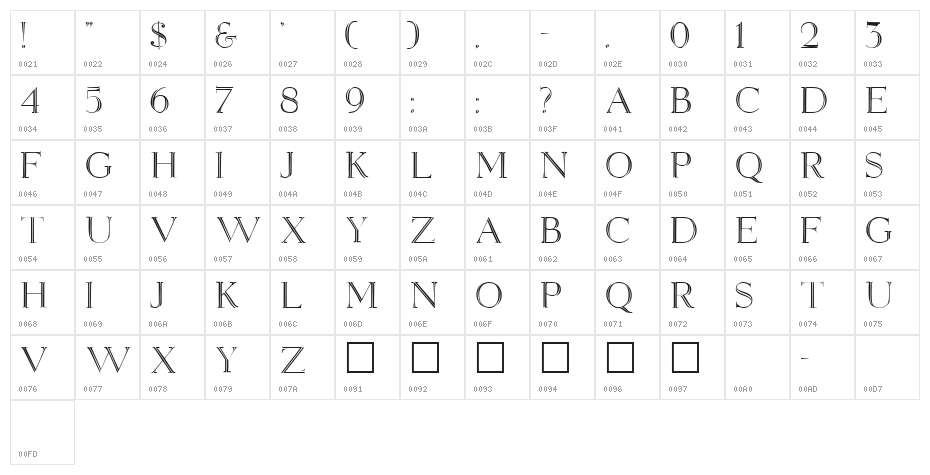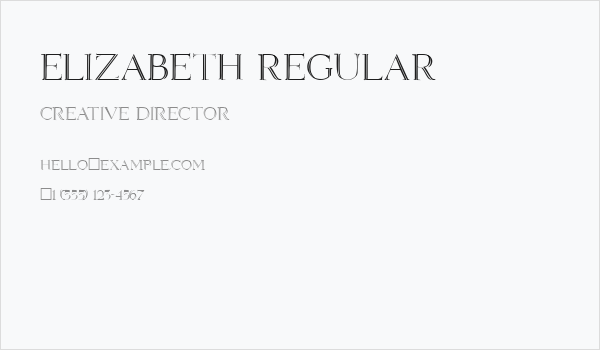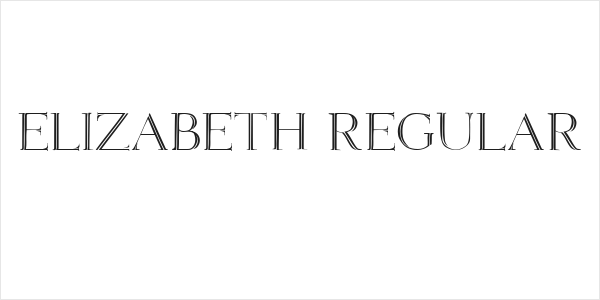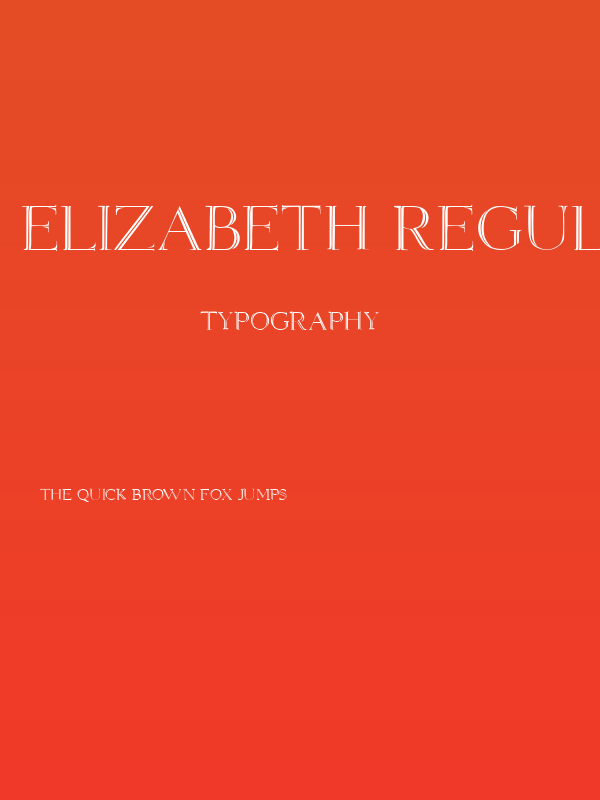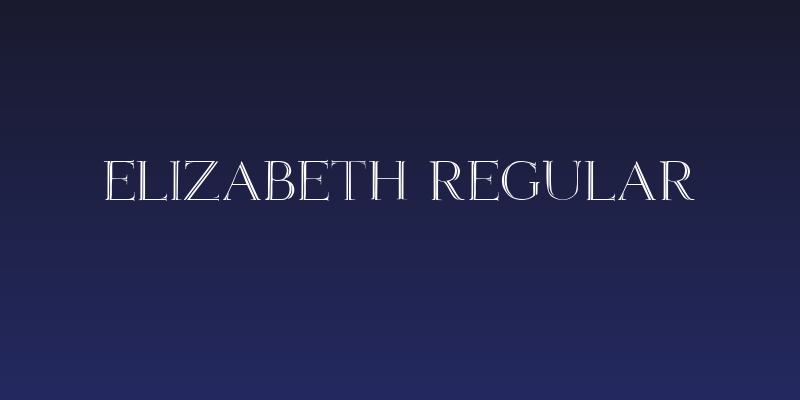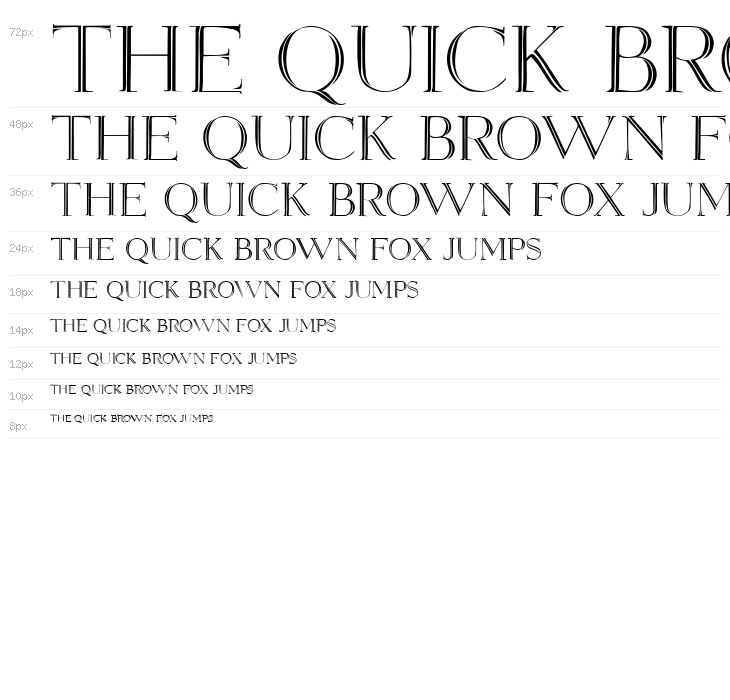
Elizabeth Regular Font
Elizabeth Regular Description
This font features a sophisticated and elegant design, characterized by its thin, elongated serifs and high contrast between thick and thin strokes. The uppercase letters are particularly striking, with a refined and classic appearance that suggests a sense of luxury and tradition. The numerals and special characters maintain this elegance, offering a cohesive look across all glyphs. The overall style is reminiscent of classic serif fonts but with a modern twist, making it suitable for both traditional and contemporary applications.
| Proposed Projects | Ideal for luxury branding, editorial design, wedding invitations, and high-end product packaging. |